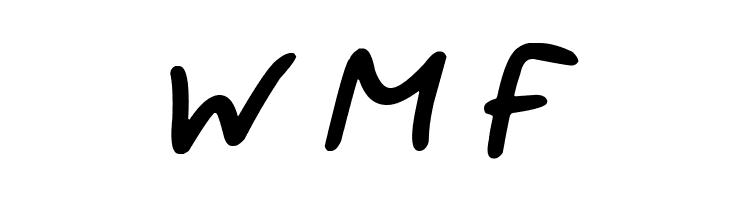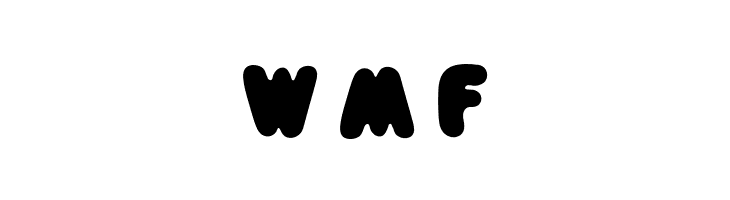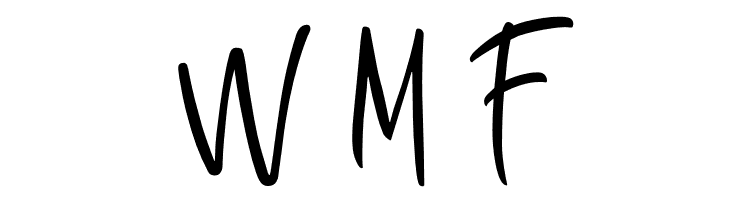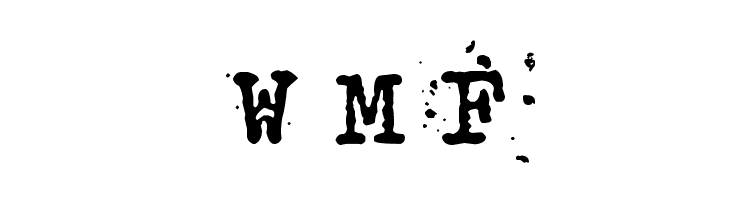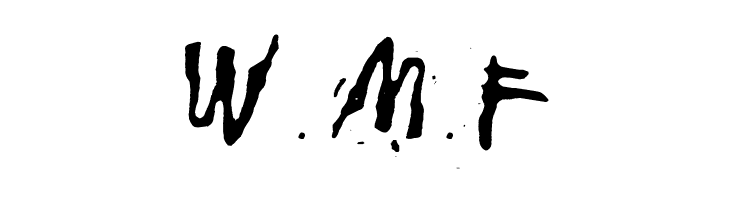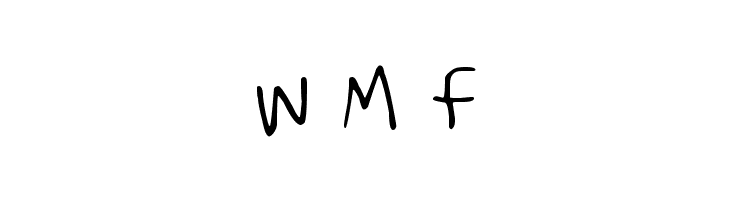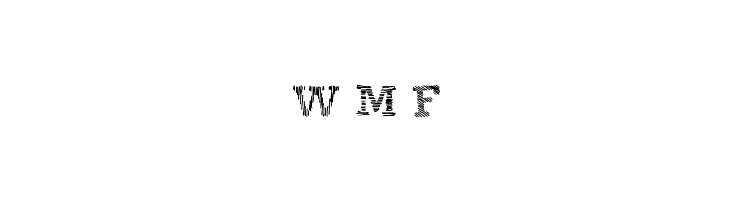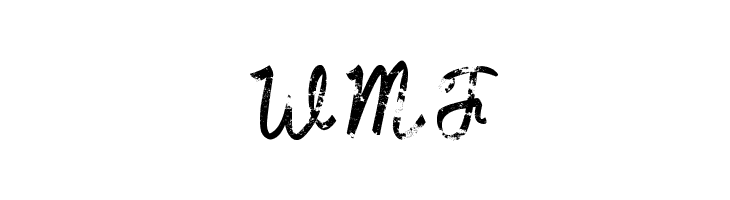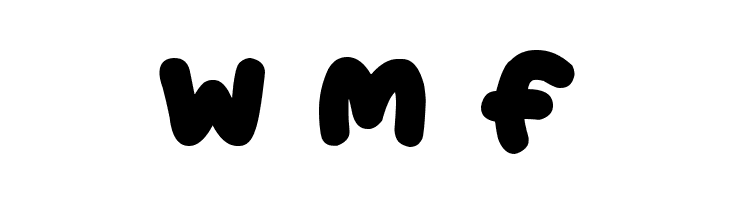
• Joyful Juliana
( Fonts by Kimberly Geswein - kimberlygeswein.com )
A playful, hand-drawn font with a casual and lively appearance.
• Juice it up Italic
( Fonts by Darrell Flood )
A playful, handwritten font with bold, rounded strokes and a dynamic slant.
• Juicebox
( Chequered Ink - chequered.ink/ )
A bold, rounded font with a modern and playful aesthetic.
• Juicy Fruity Plain
( Darrell Flood )
A bold, playful font with rounded, bubbly characters and a retro vibe.
• JuicyBoxes
A bold, textured font with a hand-drawn, sketch-like appearance.
• Julitta - Demo
A lively handwritten font with a dynamic and informal style.
• Jumbalo
( Fonts by Sharkshock )
A playful, bold font with rounded, bubble-like characters.
• Jumper^
( Fonts by PremiereGraphics )
A distressed, brush-style script font with a rugged, artistic appearance.
• junko typewriter
( Fonts by www.junkohanhero.com )
A vintage, distressed typewriter-style font with a textured, stamped appearance.
• junkohanhero
( Fonts by www.junkohanhero.com )
A bold, hand-drawn font with irregular strokes and an artistic, expressive style.